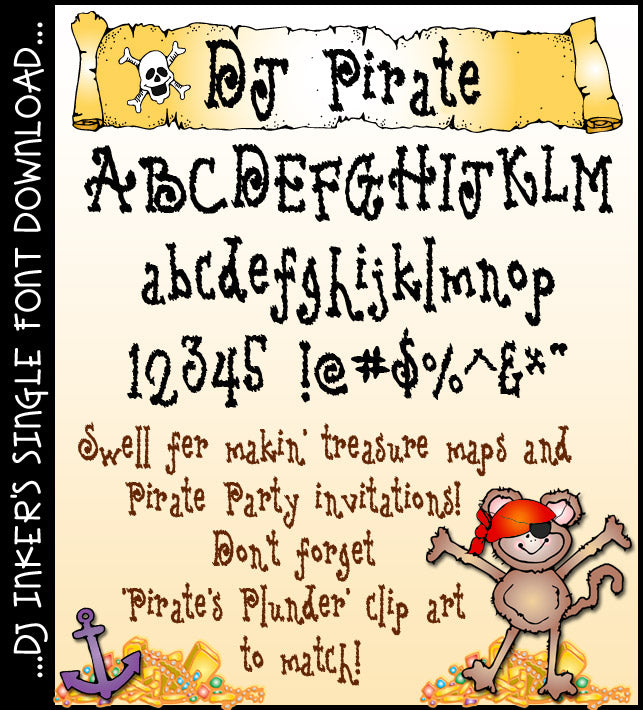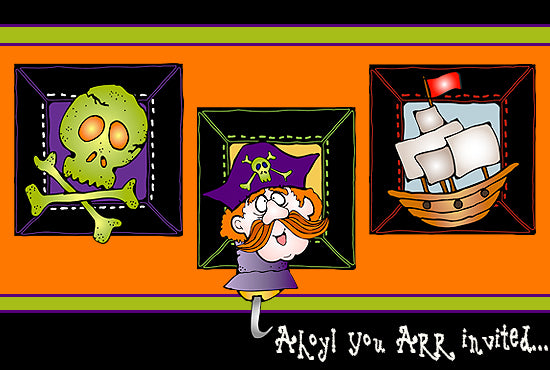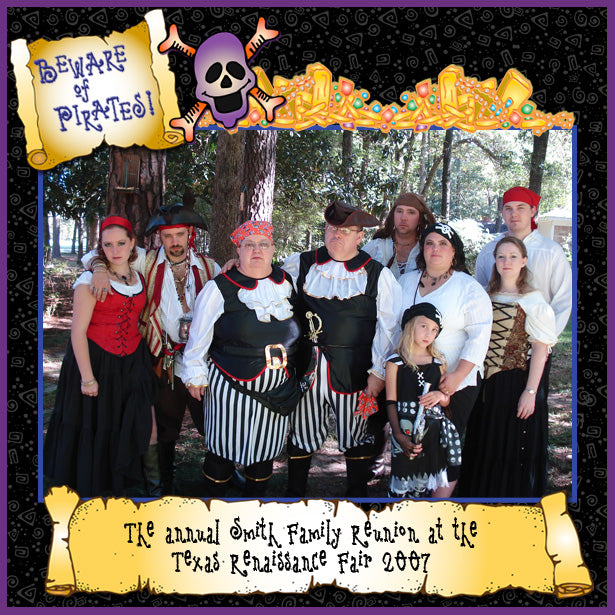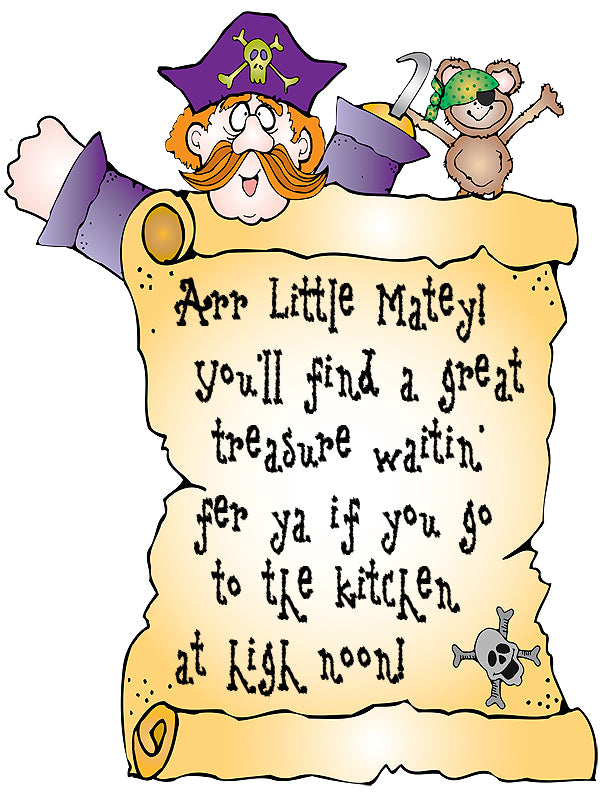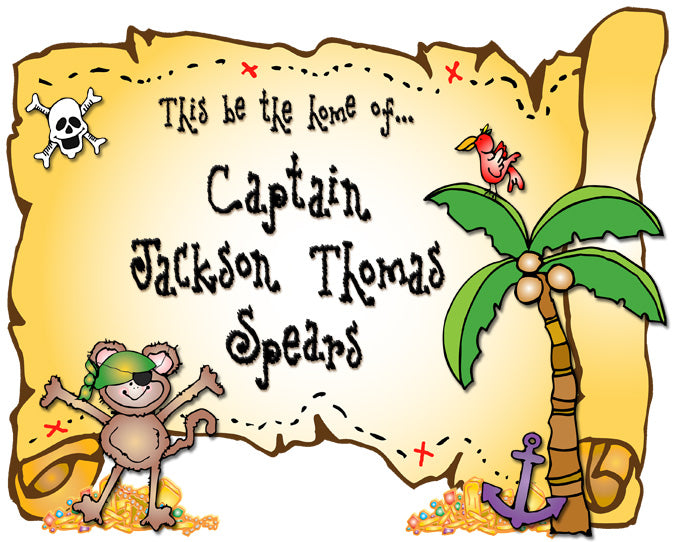
DJ Pirate Font Download
DJ Pirate is a swell font for makin' treasure maps and pirate party invitations. It looks mighty good in any size and color... especially paired with our Pirate's Plunder clip art. Download yours today me hearties!